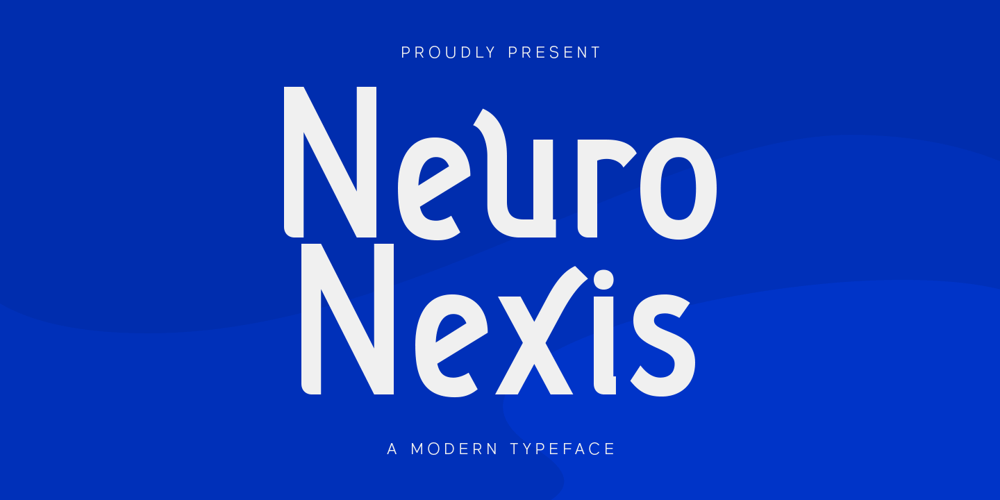
Neuro Nexis Font Family was designed by Hendry Juanda and published by Letterhend. Neuro Nexis contains 1 styles and family package options. Neuro Nexis is the epitome of modernity and dynamic sans. With its futuristic design that convey a sense of precision and efficiency. With Neuro Nexise, your text will stand out as the ultimate embodiment of modernity.Features : Uppercase & lowercase, Numbers and punctuation, Alternates & Ligatures , Multilingual & PUA encoded